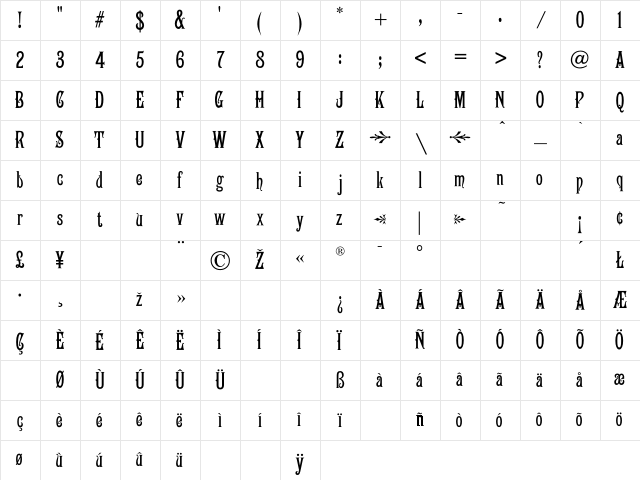
Campanile Regular Free Font
Campanile Regular
Foundry: Digitized by Dan X. Solo. Software Dover Publications, Inc
Design Context for Campanile
Campanile is a composed and adaptable typeface that performs quietly and consistently across a wide range of design contexts.
Who designed the Campanile Regular font?
This font was published by Digitized by Dan X. Solo. Software Dover Publications, Inc. Check the technical specs section for copyright and designer details.